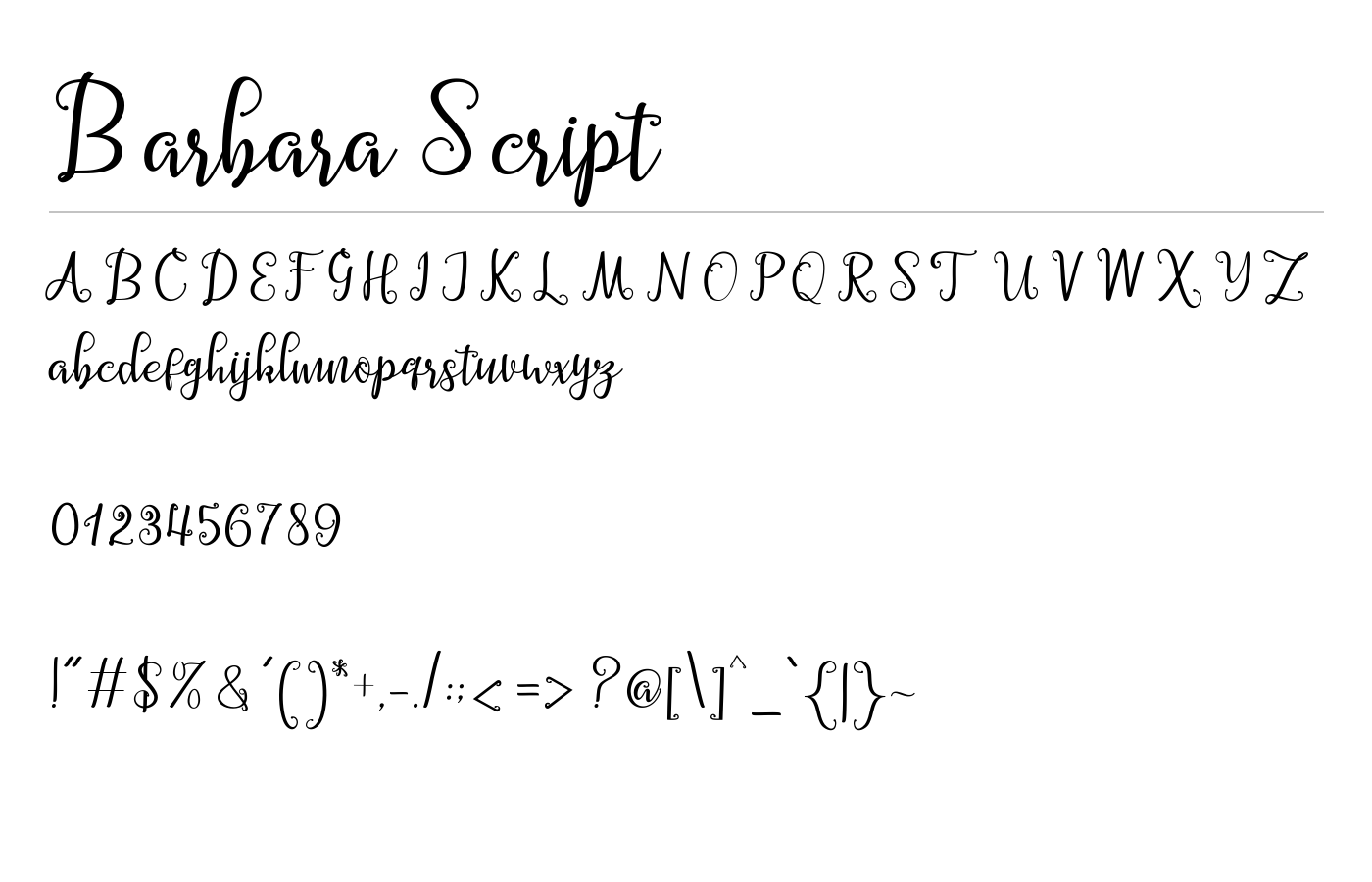
Barbara Script is a delicate and elegant script font with a playful, hand-drawn feel. It features thin, flowing strokes with charming curls and loops, making it ideal for invitations, branding, and creative projects that seek a personal and stylish touch. This font works best in display settings where its graceful personality can shine.
Barbara Script Font
About Barbara Script Font
| Font family | Barbara Script Font |
| Designer | Fajriadi_pholetter |